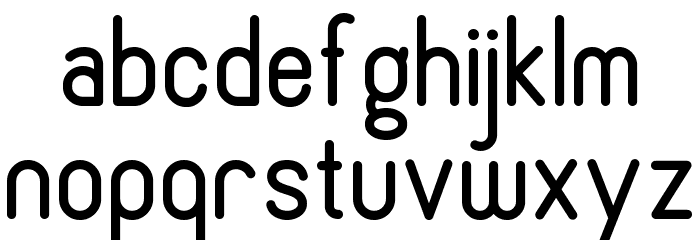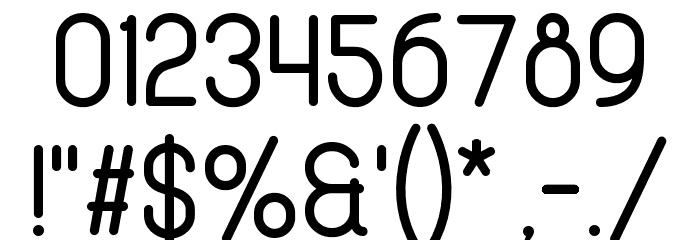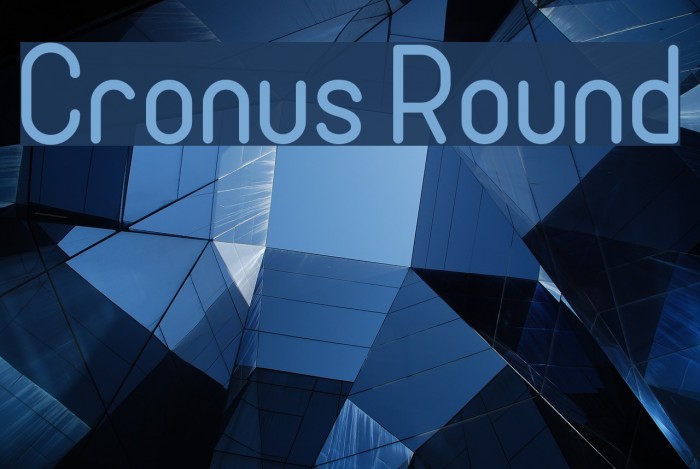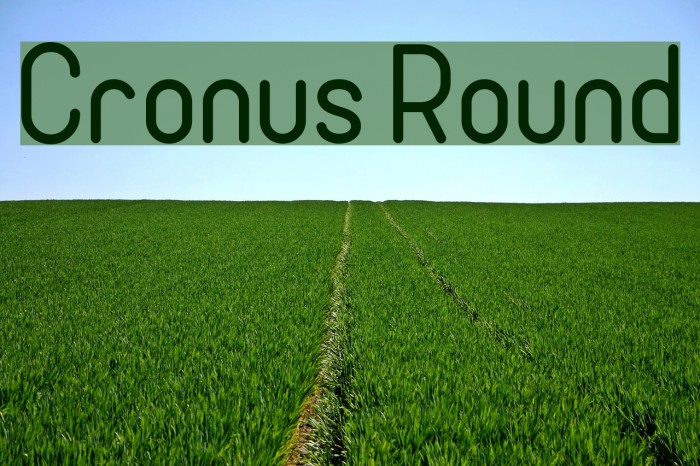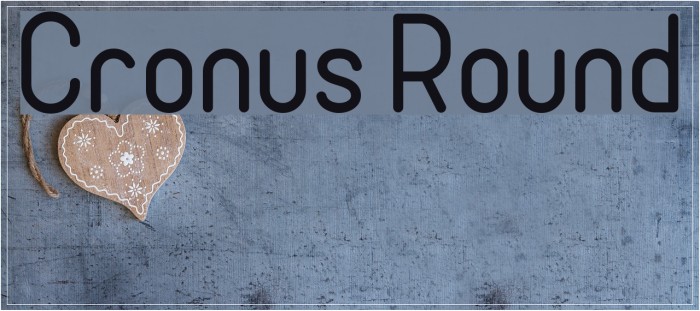
Cronus Round Font
This font features a modern, rounded sans-serif style that exudes a friendly and approachable vibe. The characters are uniformly structured with smooth curves and consistent stroke widths, creating a harmonious and balanced appearance. The rounded terminals and clean lines contribute to its legibility, making it suitable for various applications. The numerals and special characters maintain the same rounded aesthetic, ensuring a cohesive look across all text elements. Its simplicity and clarity make it versatile for both digital and print media.
A modern, rounded sans-serif font with smooth curves and consistent stroke widths.
- Proposed Projects: Ideal for branding, web design, user interfaces, signage, and children's books due to its friendly and approachable style.
- Category: Sans-Serif
- Use Case: Headlines, Body text, Logos